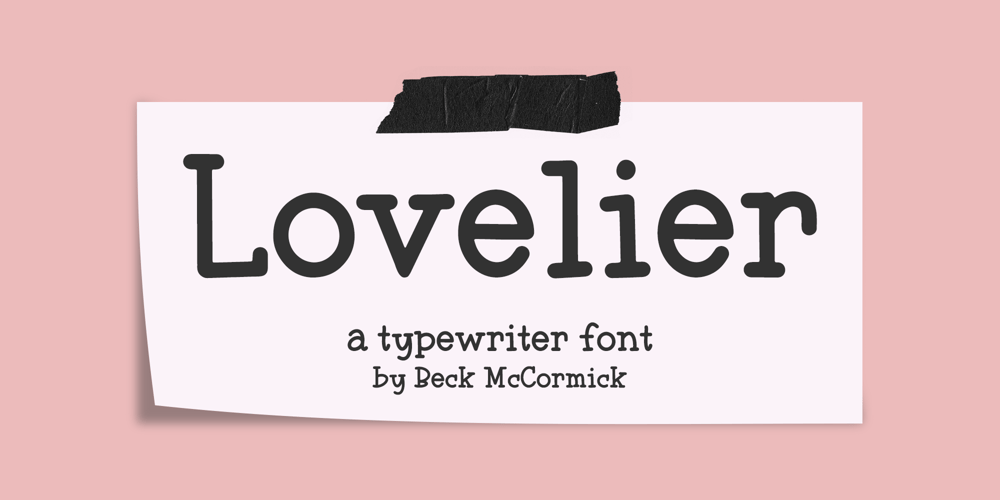
Lovelier Typewriter Font Family was designed by Beck McCormick and published by BeckMcCormick. Lovelier Typewriter contains 1 styles and family package options. Say hello to Lovelier, a handlettered typewriter style font. Lovelier is cute, quirky, and clean.Lovelier includes:- full upper + lowercase characters- numbers + punctuation- Western European Language Support- PUA-encoding